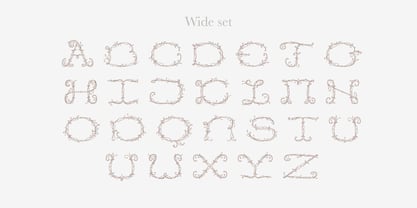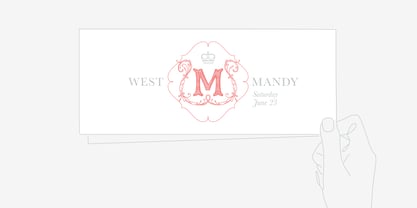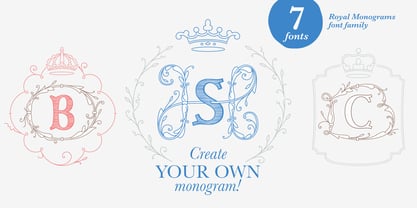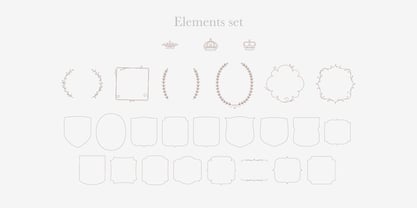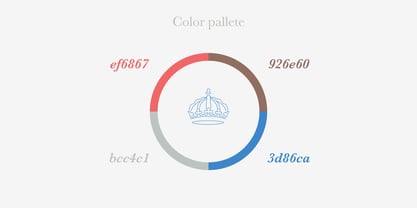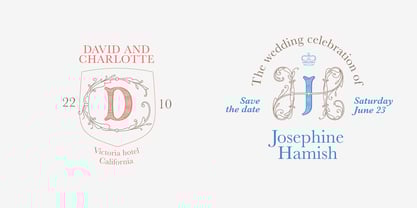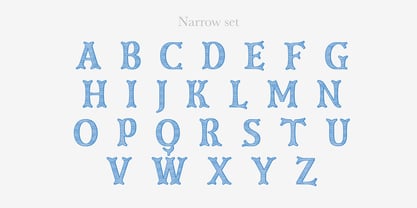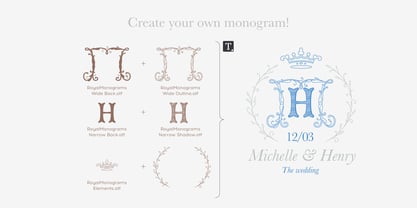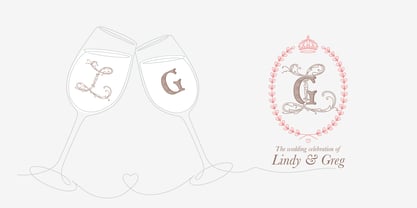
Royal Monograms
The Royal Monograms Font Family was designed by Roman Korolev and published by Kaer. Royal Monograms contains 7 styles and family package options. More about this family
Royal Monogram is a family of fonts in an elegant historical style. Perfect for decorating your wedding or family celebration. You can create your own monogram by combining the letters as you wish.
• Wide and Narrow capitals fonts
• Elements set